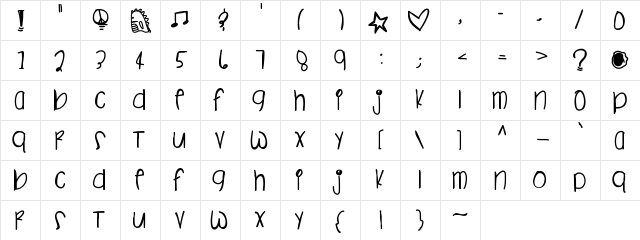
Complete SafariColorway Medium glyph index. Displaying only characters natively supported by SafariColorway Medium font.
SafariColorway is a composed and adaptable typeface that performs quietly and consistently across a wide range of design contexts.